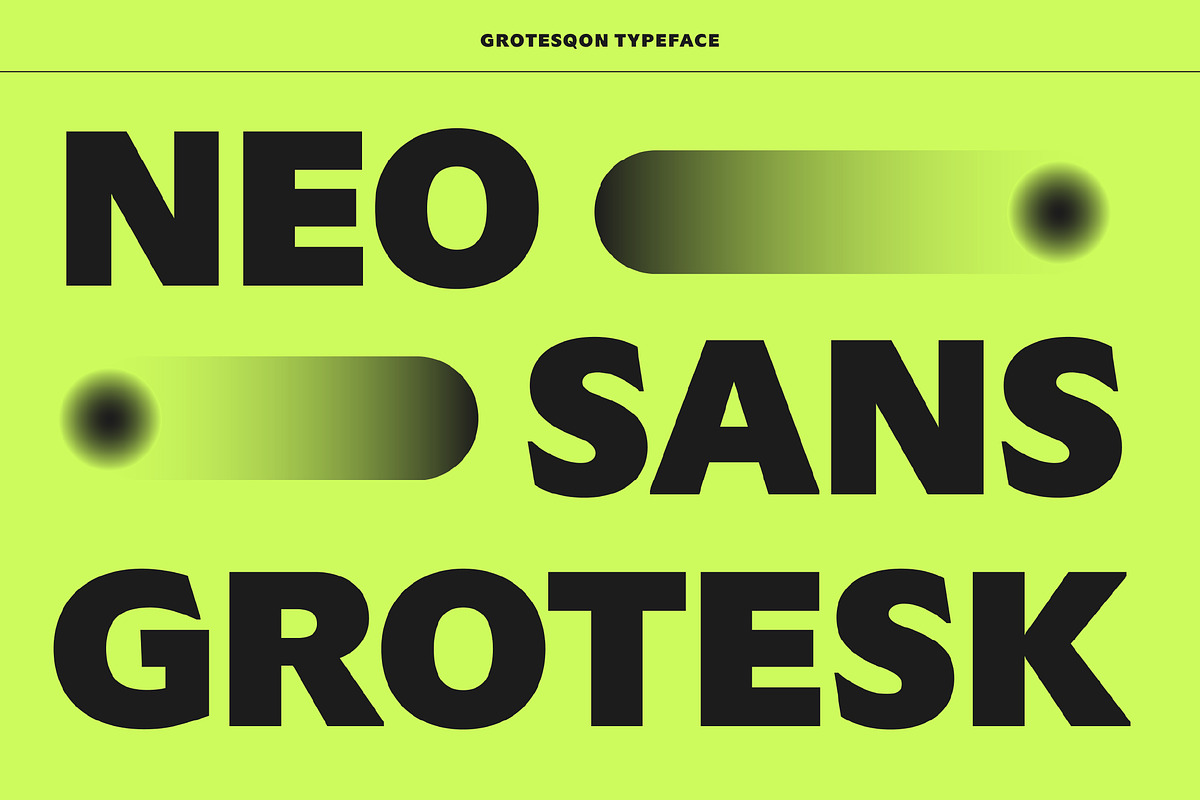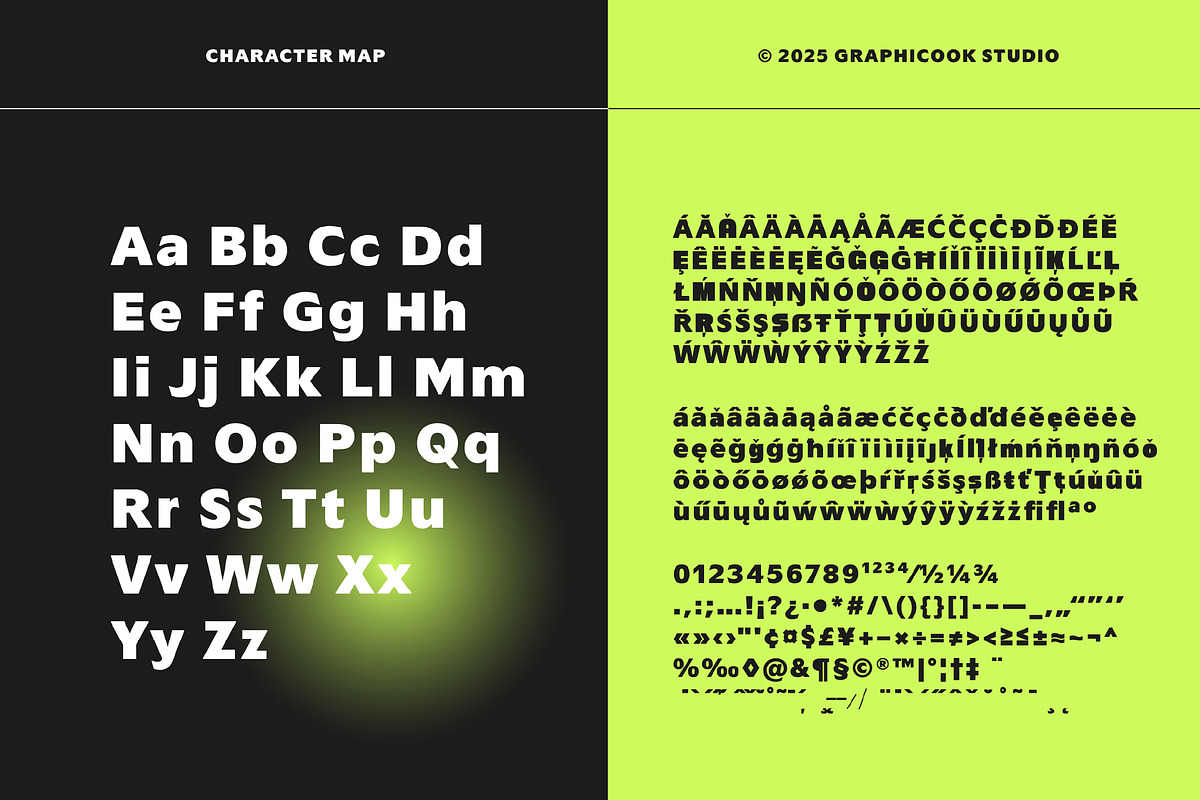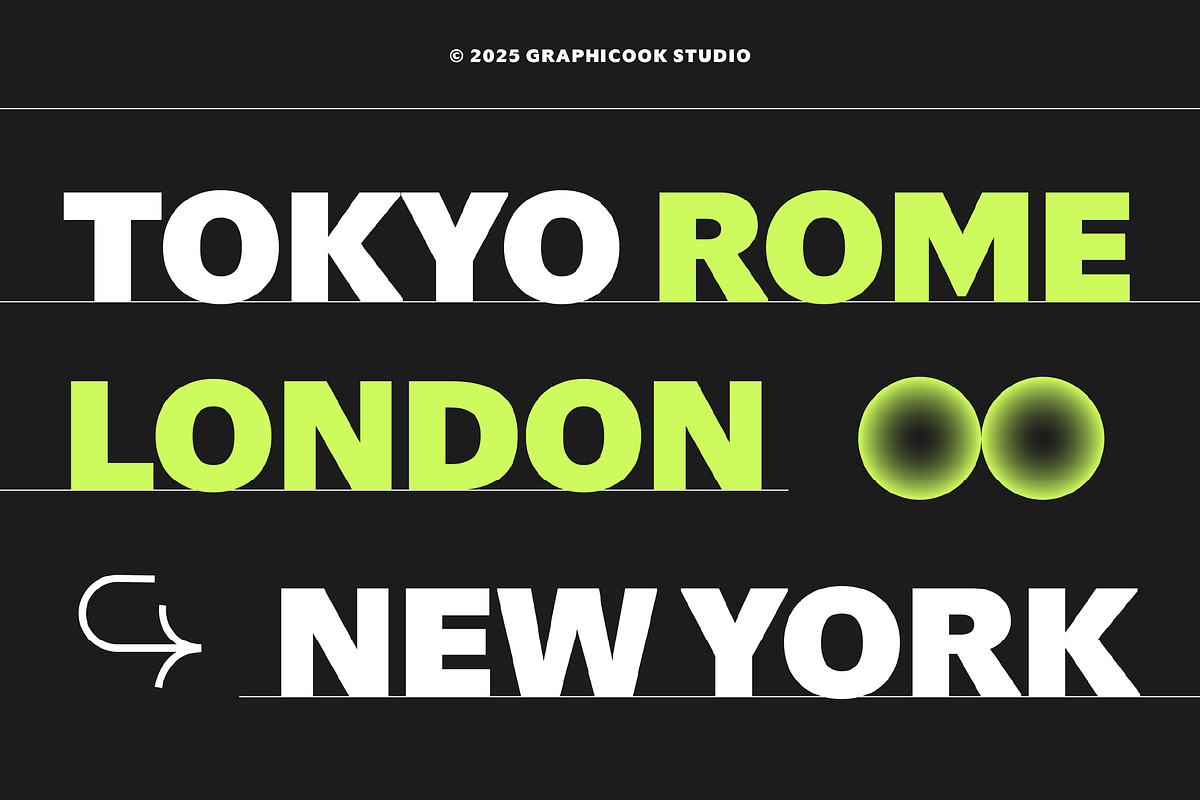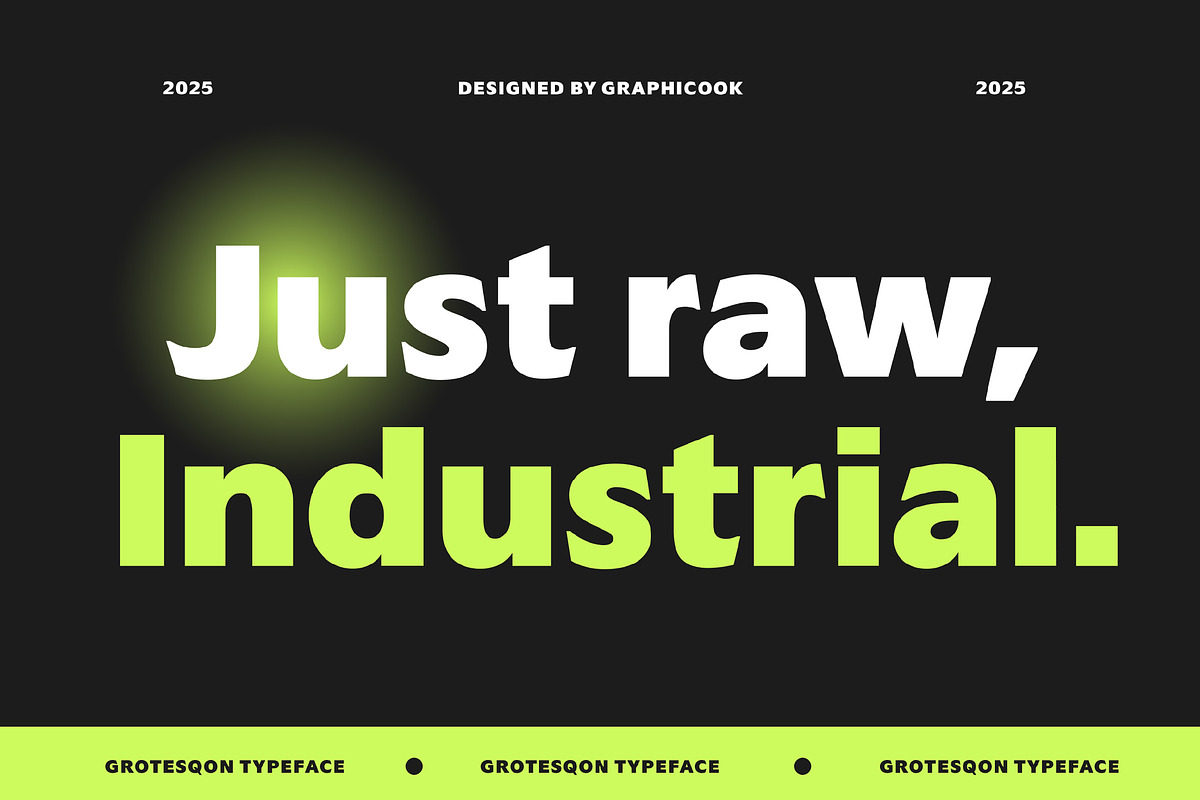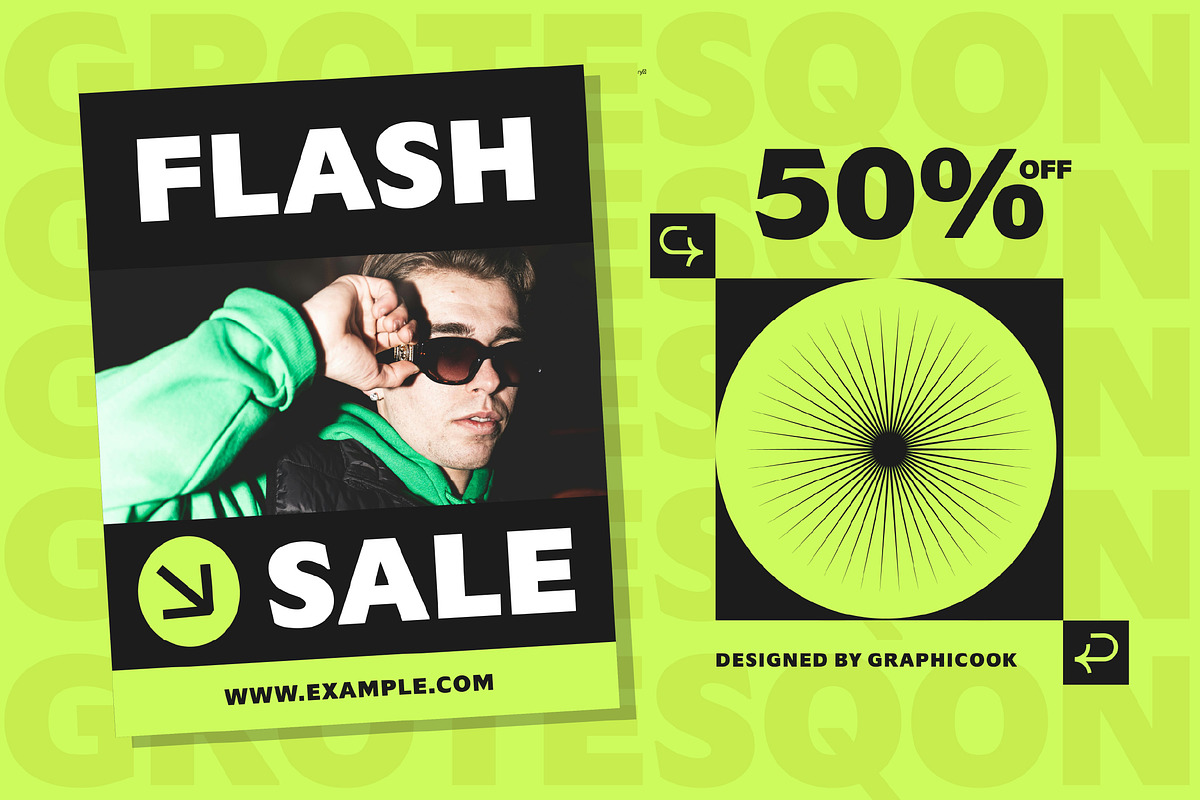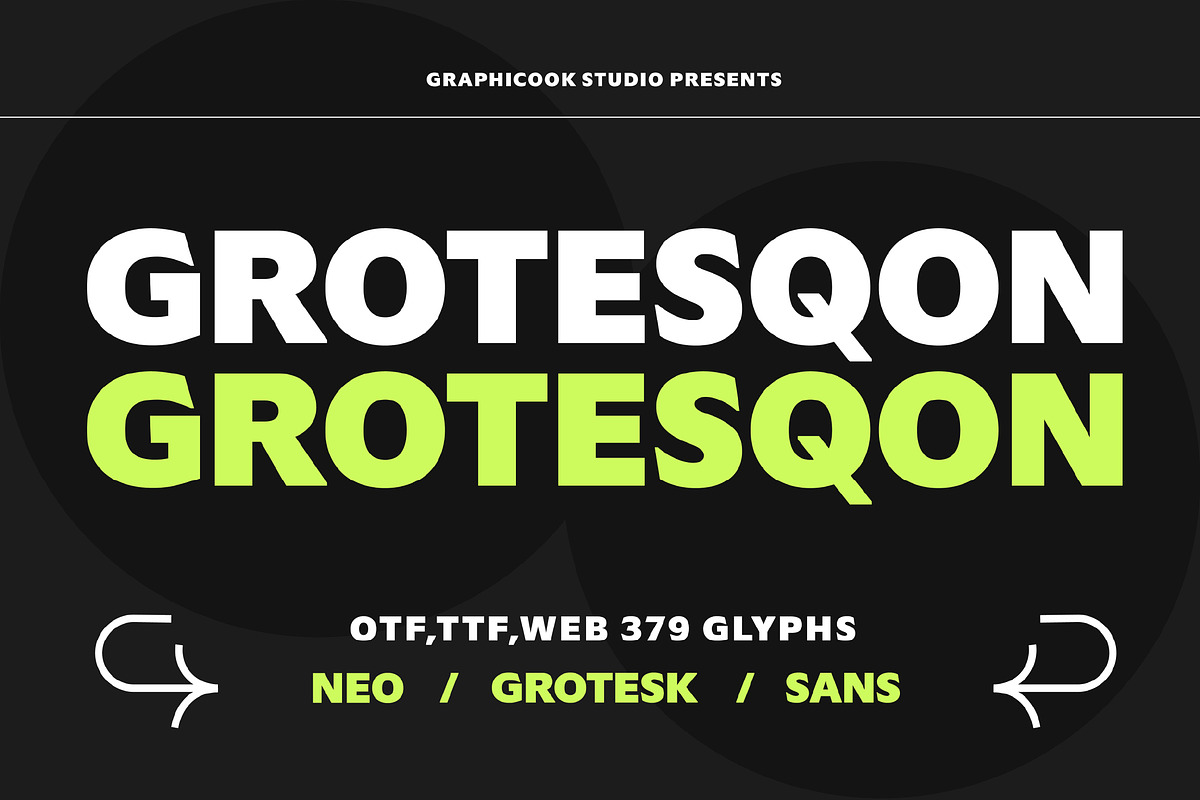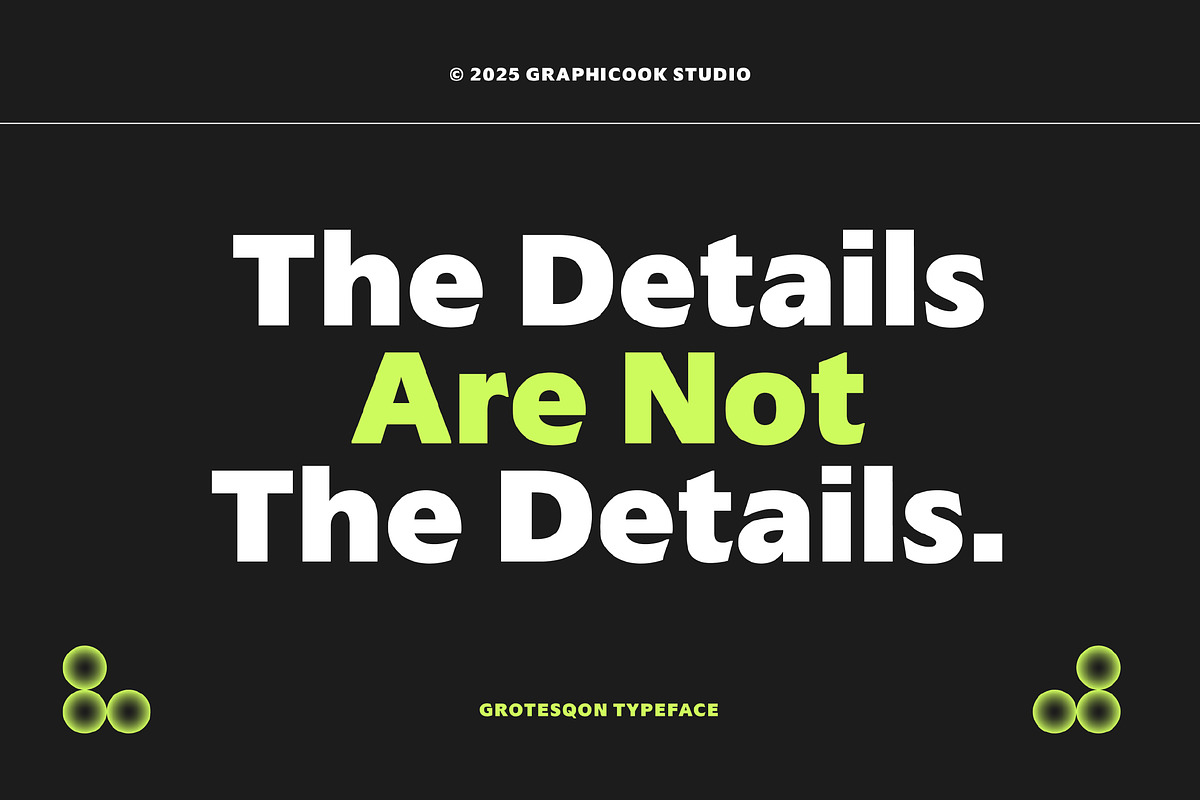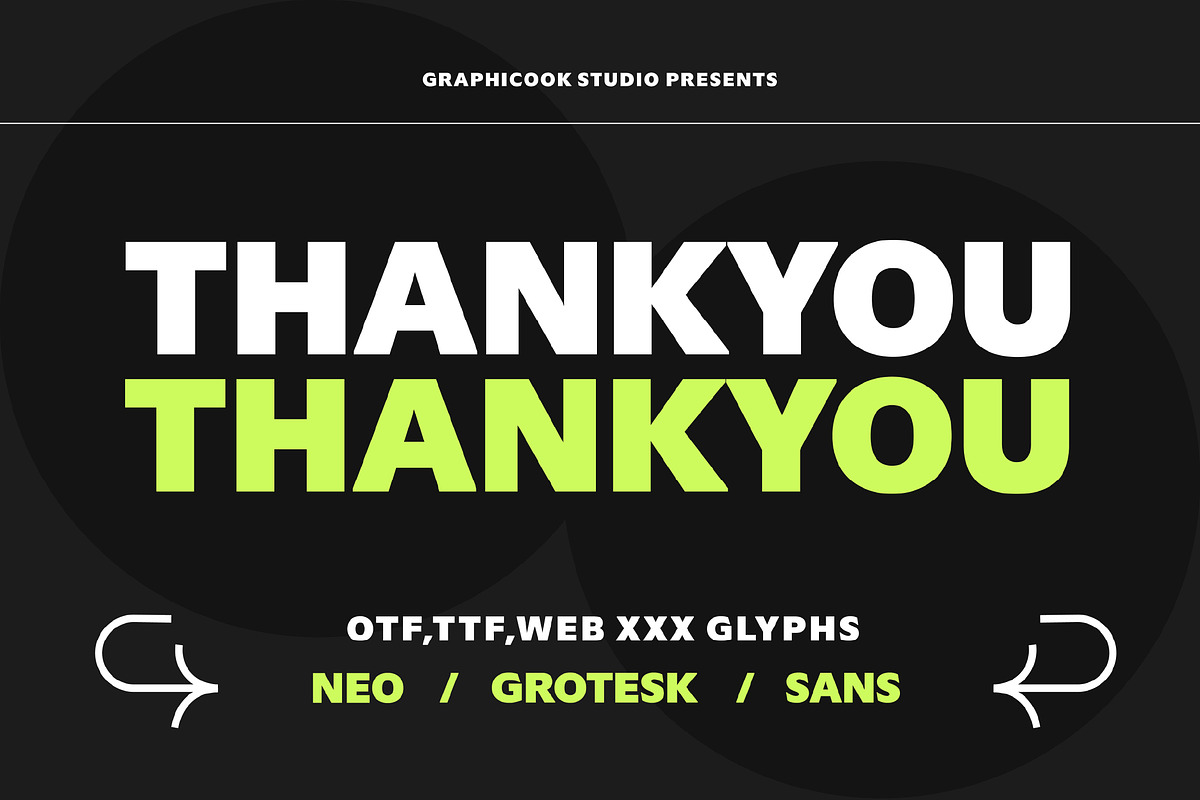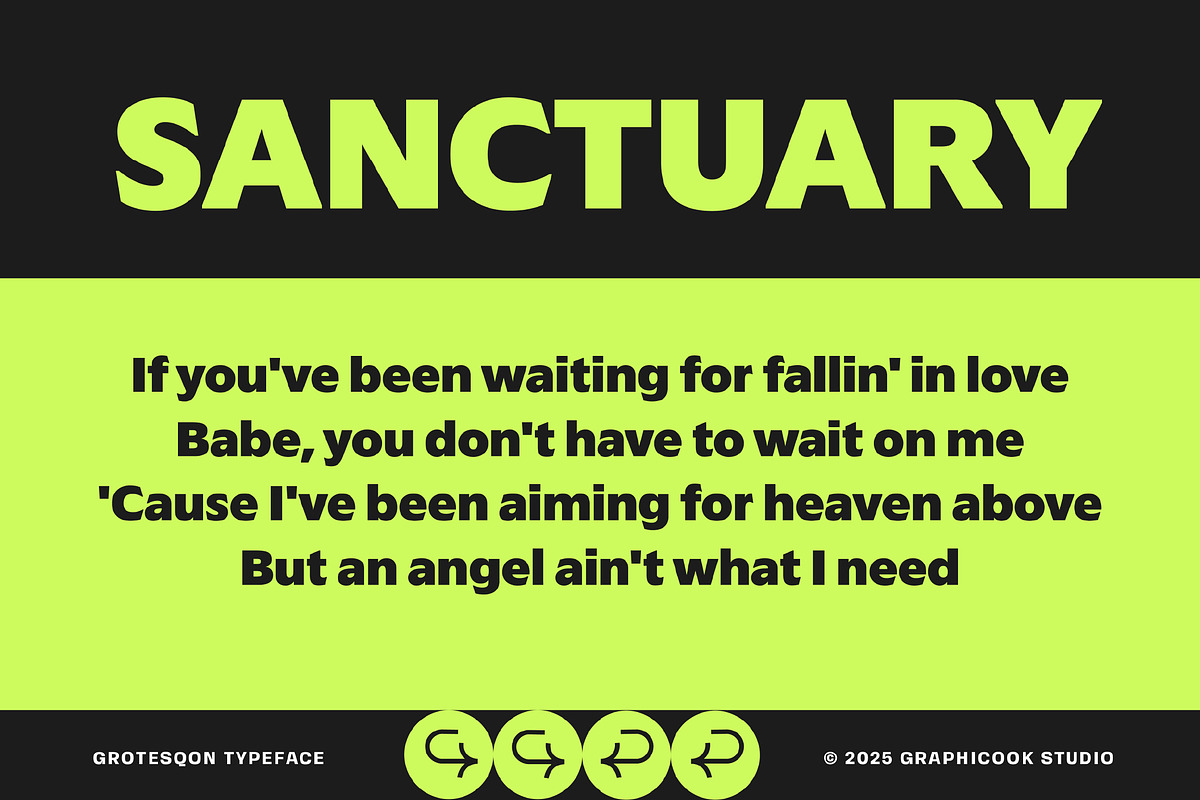
Grotesqon
Grotesqon is an experimental font with a clean, bold appearance and a grotesk-inspired style. Suitable for posters, packaging, branding, and logos.
Grotesqon is perfect for headlines, logotypes, magazines, packaging, quotes, movies, games, cover albums, book covers, and flyers, it's a perfect solution for creating eye-catching designs that stand out in any context.